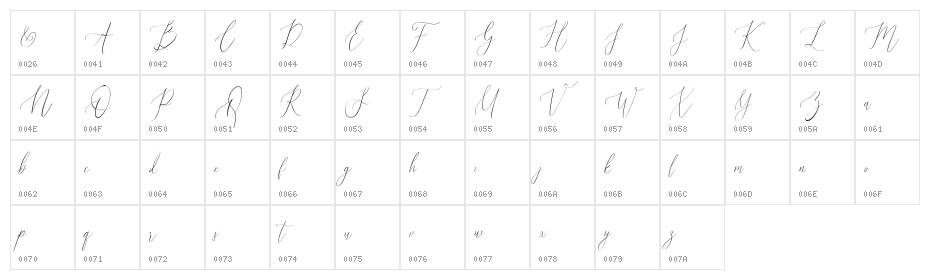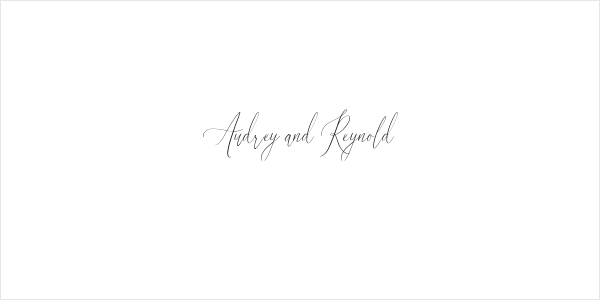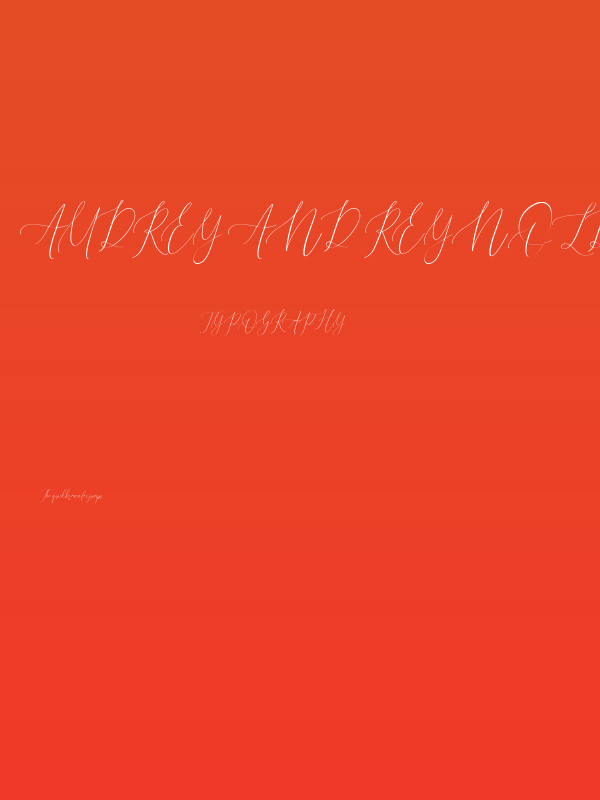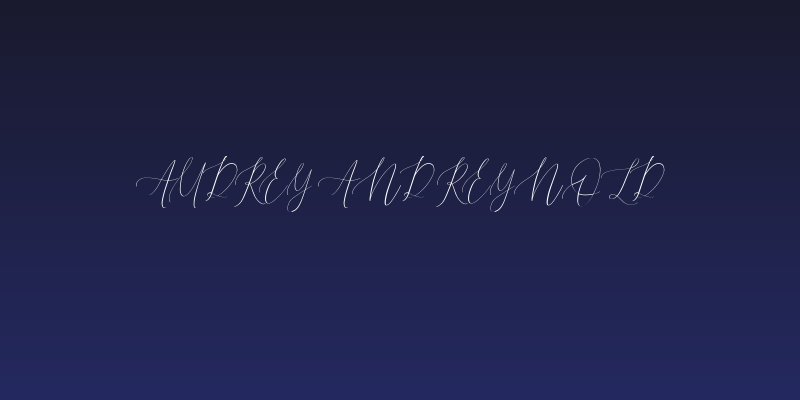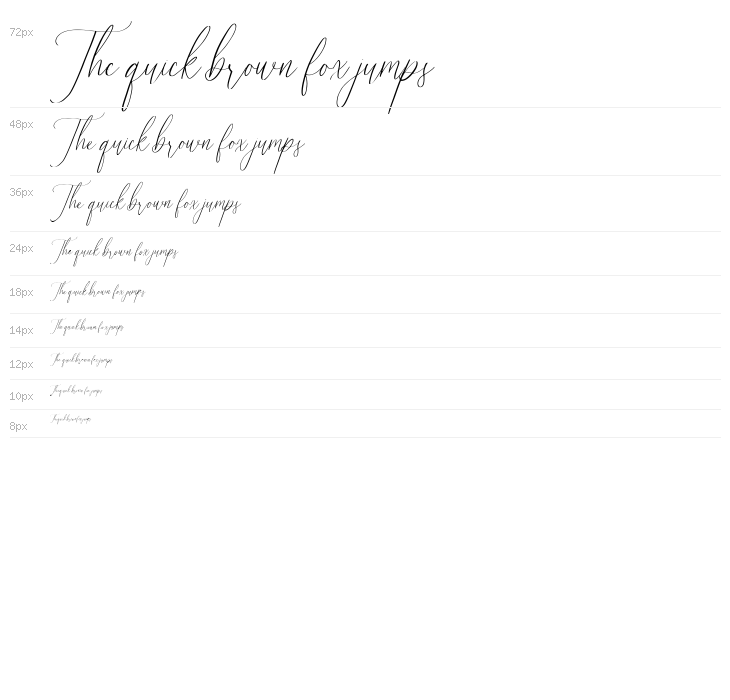
Audrey and Reynold Font
Audrey and Reynold Description
This elegant script font features a delicate and flowing design, characterized by its thin, graceful strokes and high contrast between thick and thin lines. The letters are connected in a fluid manner, giving it a handwritten appearance that is both sophisticated and stylish. The uppercase letters are tall and slender, while the lowercase letters maintain a consistent flow, enhancing the overall aesthetic. The font's ornate style makes it ideal for formal invitations, branding, and decorative purposes. Its intricate design and attention to detail make it stand out, adding a touch of elegance to any project.
| Proposed Projects | Ideal for wedding invitations, elegant branding, decorative prints, and formal stationery. |